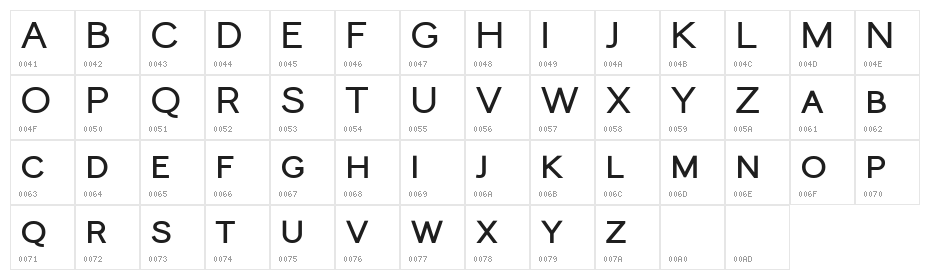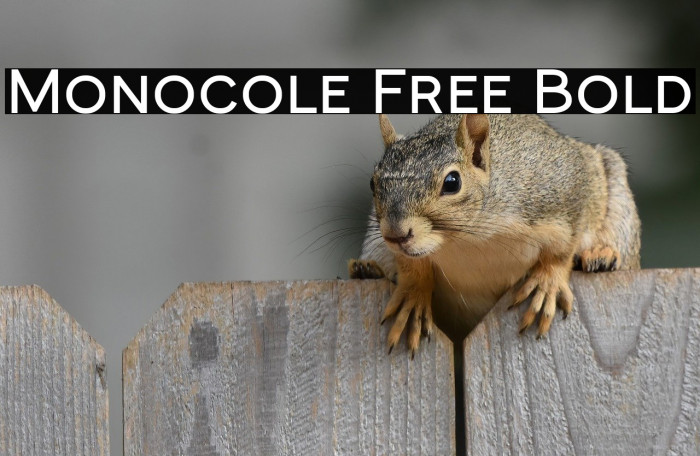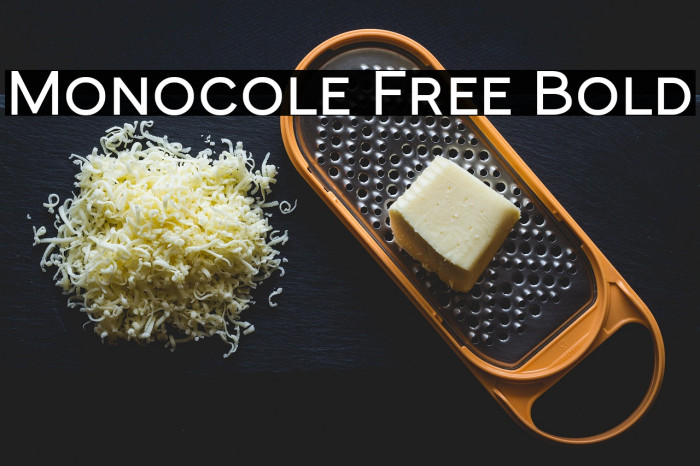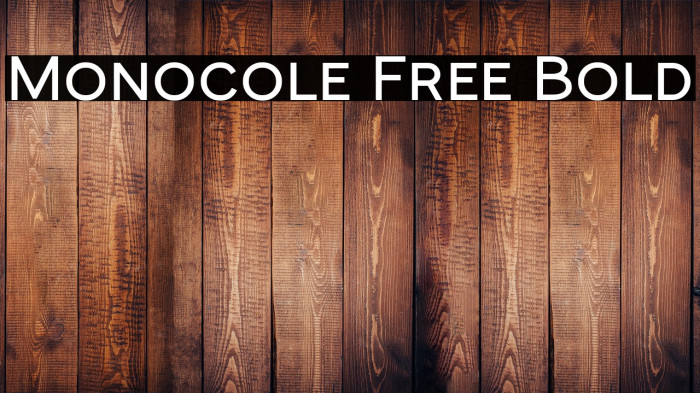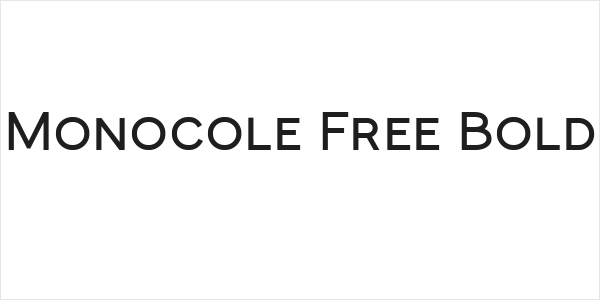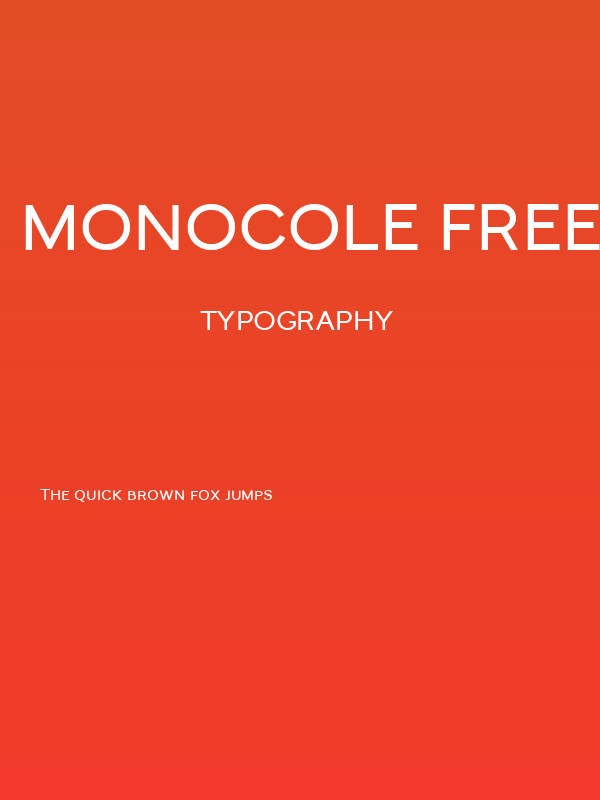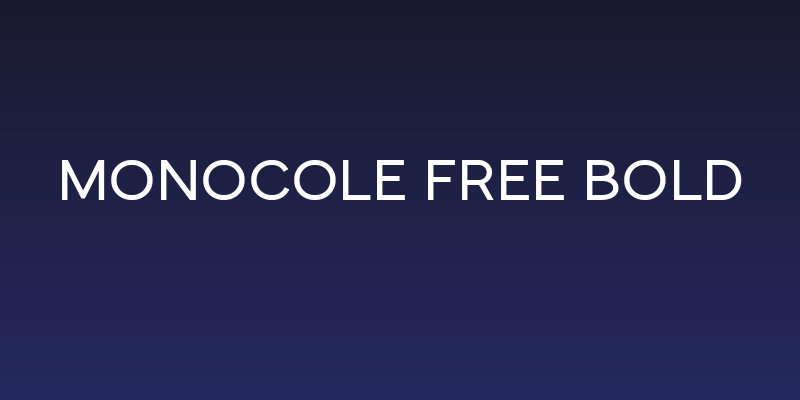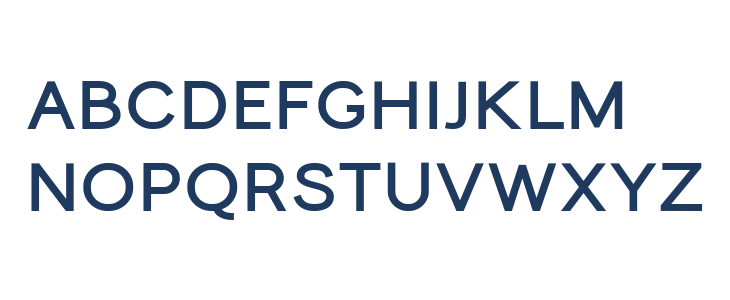
Monocole Free Bold Font
Monocole Free Bold Description
This font exhibits a clean and modern sans-serif style, characterized by its bold and uniform stroke weight. The letters are well-proportioned with a consistent height, making it highly legible. The design is minimalistic, with straight lines and smooth curves, giving it a contemporary and professional appearance. The spacing between characters is normal, ensuring readability without overcrowding. This font is versatile, suitable for various applications where clarity and impact are essential.